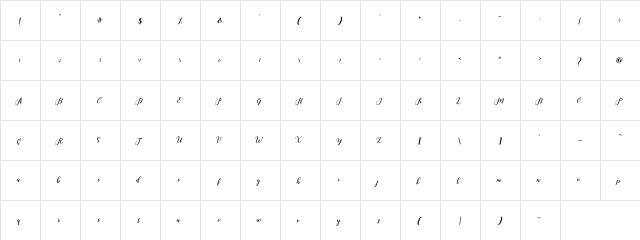
Hello Junita Regular
DesignerCaptain Jack
Design Context for Hello Junita Typeface
Hello Junita is a composed and adaptable typeface that performs quietly and consistently across a wide range of design contexts.